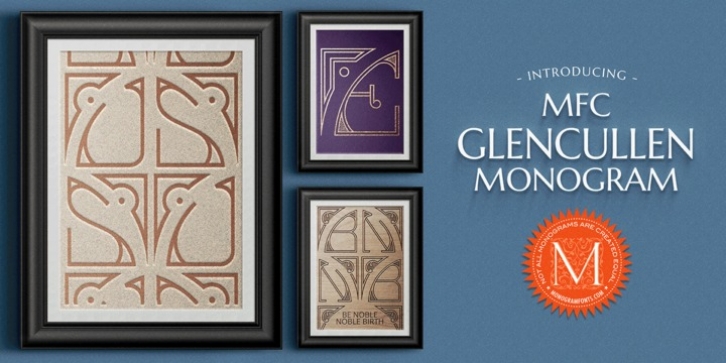
MFC Glencullen Monogram was designed by Jim Lyles, Brian Bonislawsky and published by Monogram Fonts Co.. MFC Glencullen Monogram contains 8 styles and family package options.
The inspiration source for Glencullen Monogram is an eccentric hand-drawn letterset from a vintage embroidery publication combining two quarter circle letterforms to create a semicircular monogram. Originally intended to adorn handkerchiefs, it has many other possibilities. Numbers and letters can be combined to create decoratively framed monograms, while the left and right parenthesis characters help to create an even more customized bracketing. This is one of many monogram designs from the early 1900's which fall into a two letter format that is either adorned or interwoven with ornamentation.